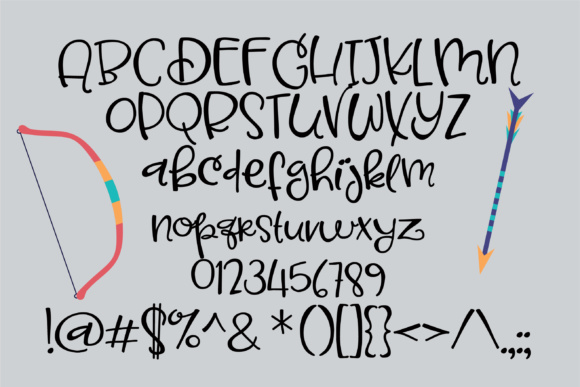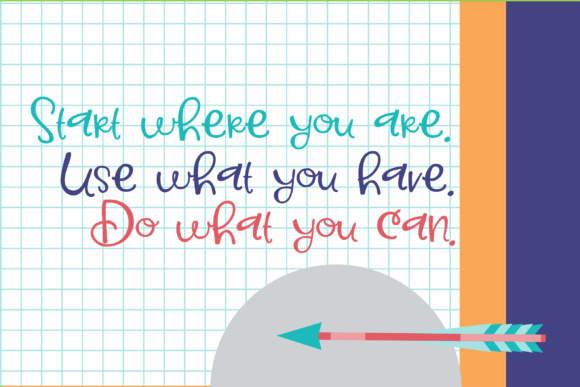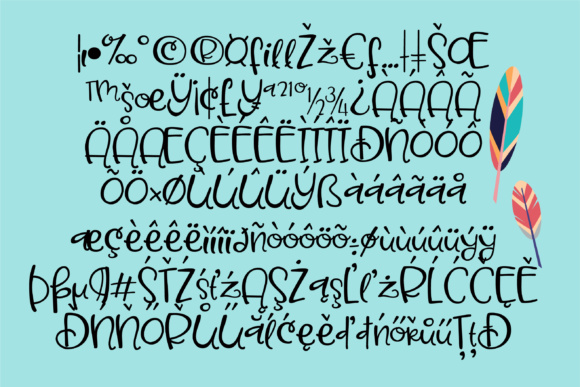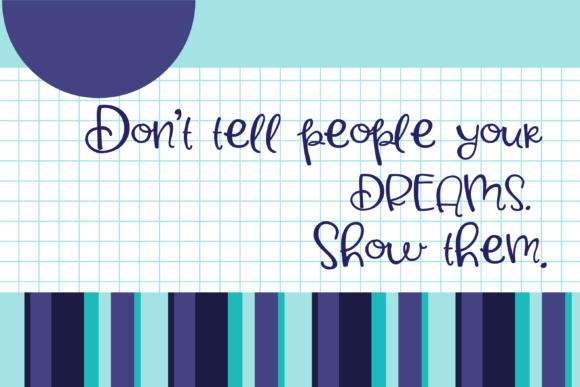
Dream Catcher Font
About Dream Catcher Font
Dream Catcher is a whimsical, hand-crafted font duo in one font. Use the uppercase alone for one look or combine with the quasi-script lowercase for another look.